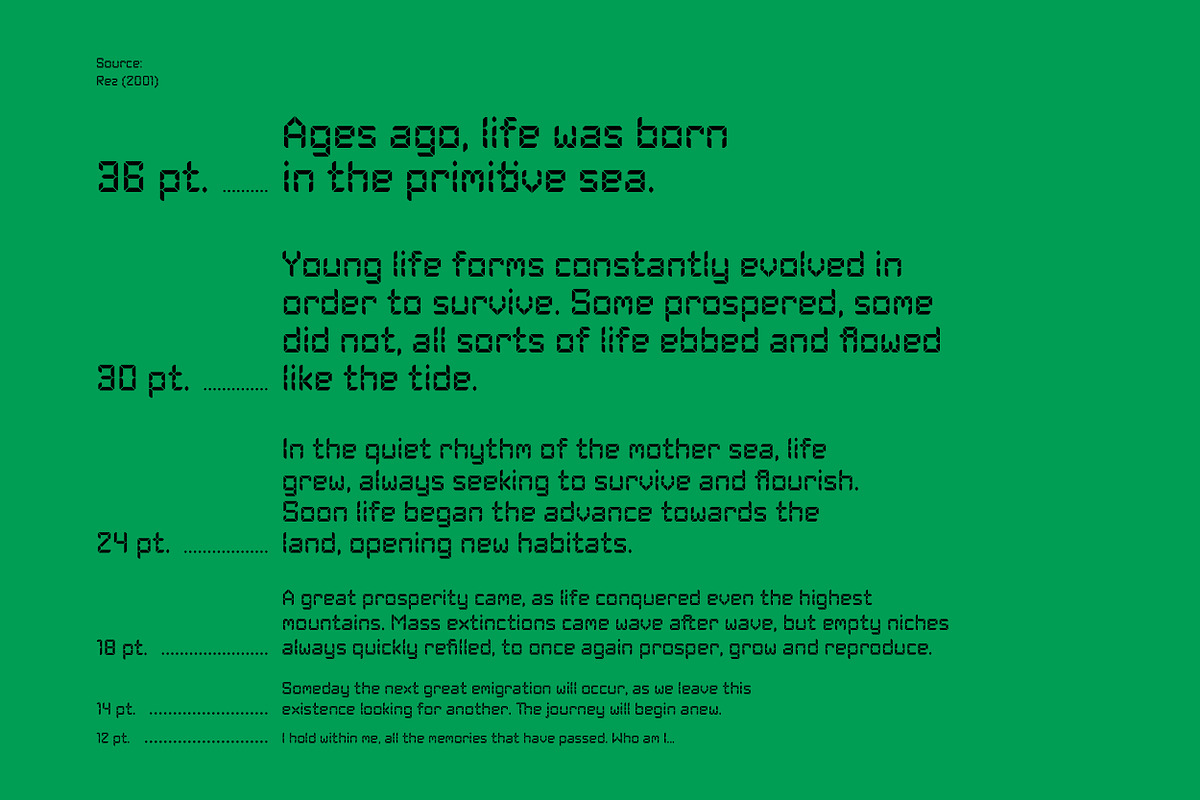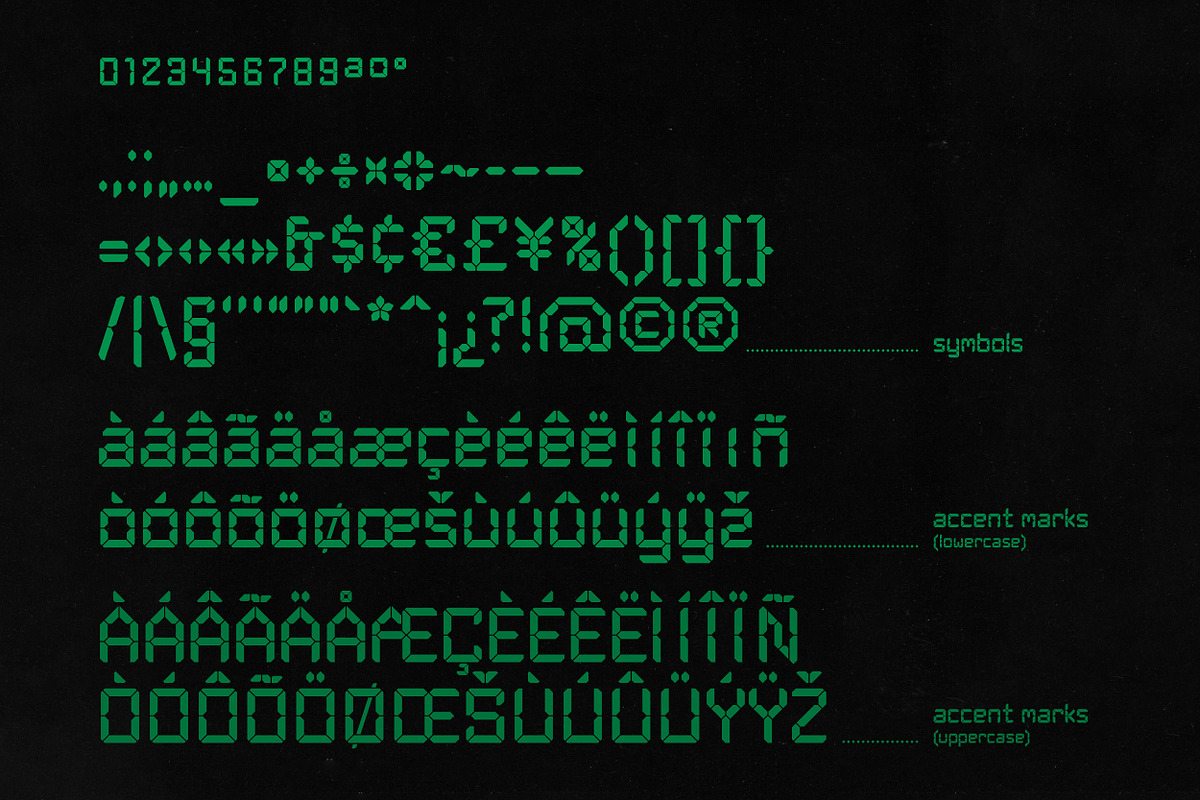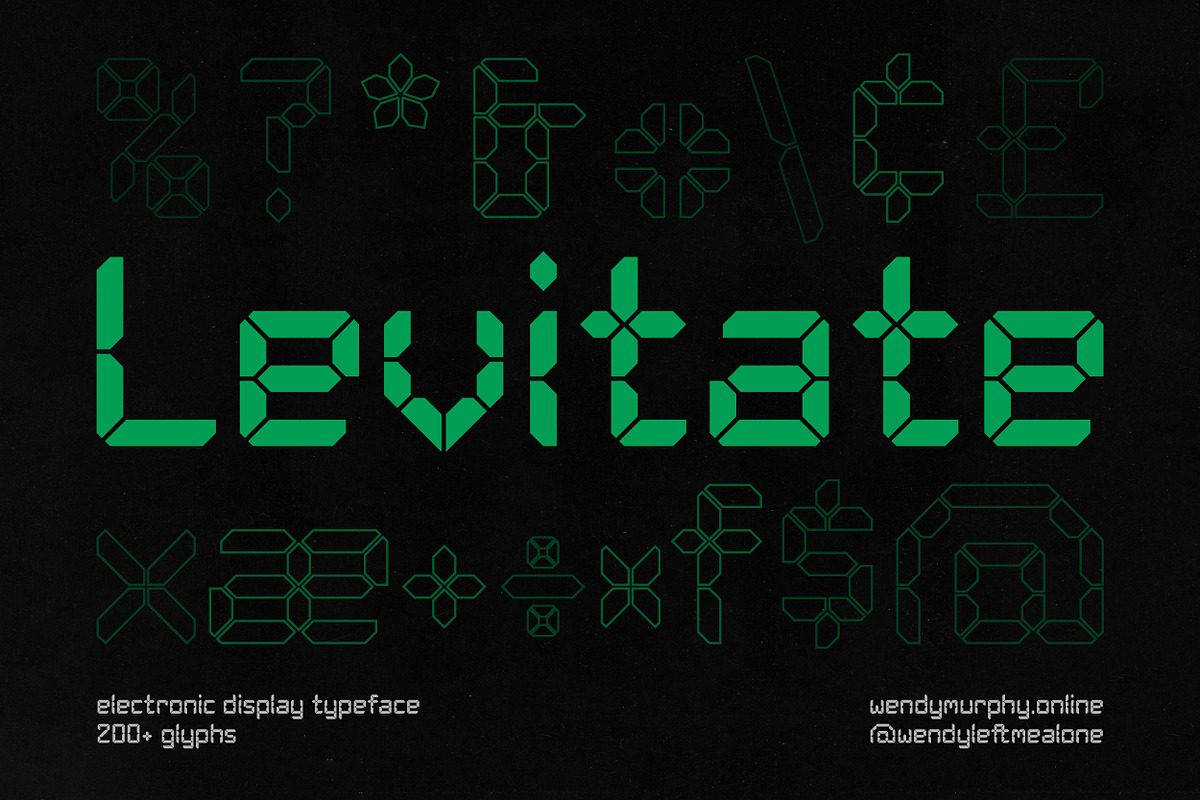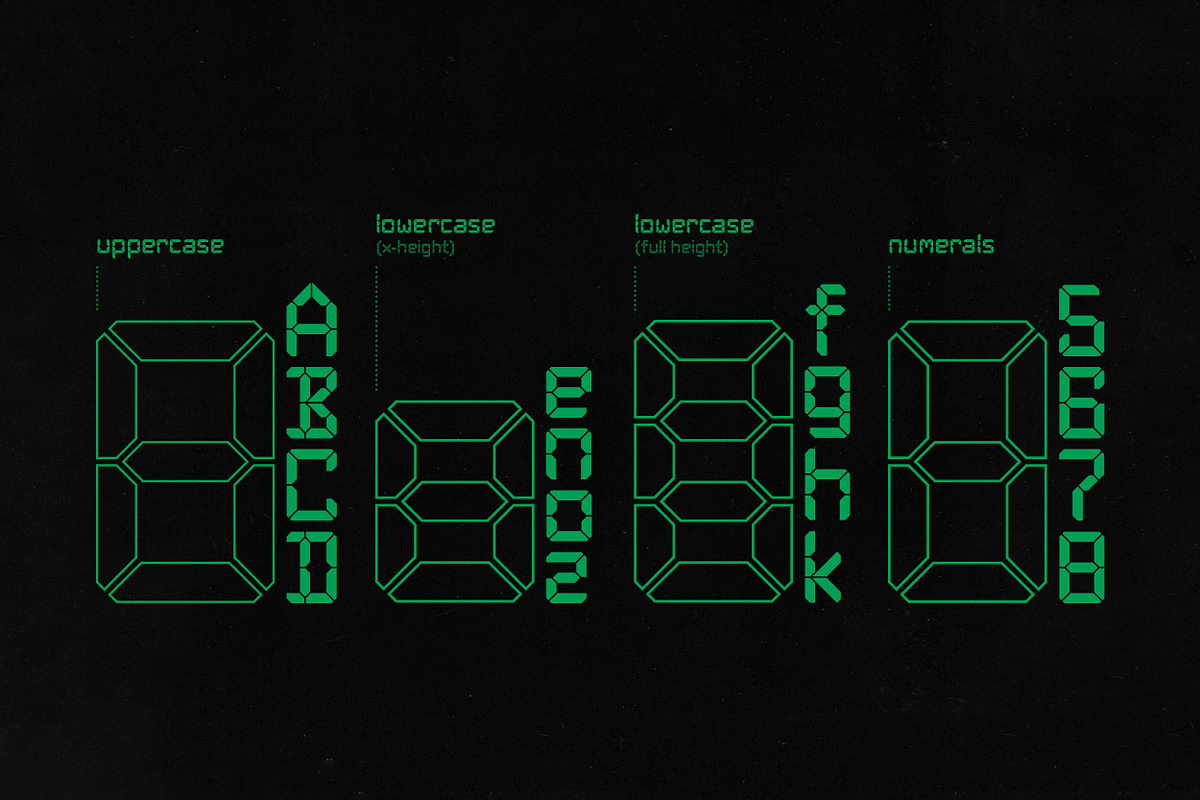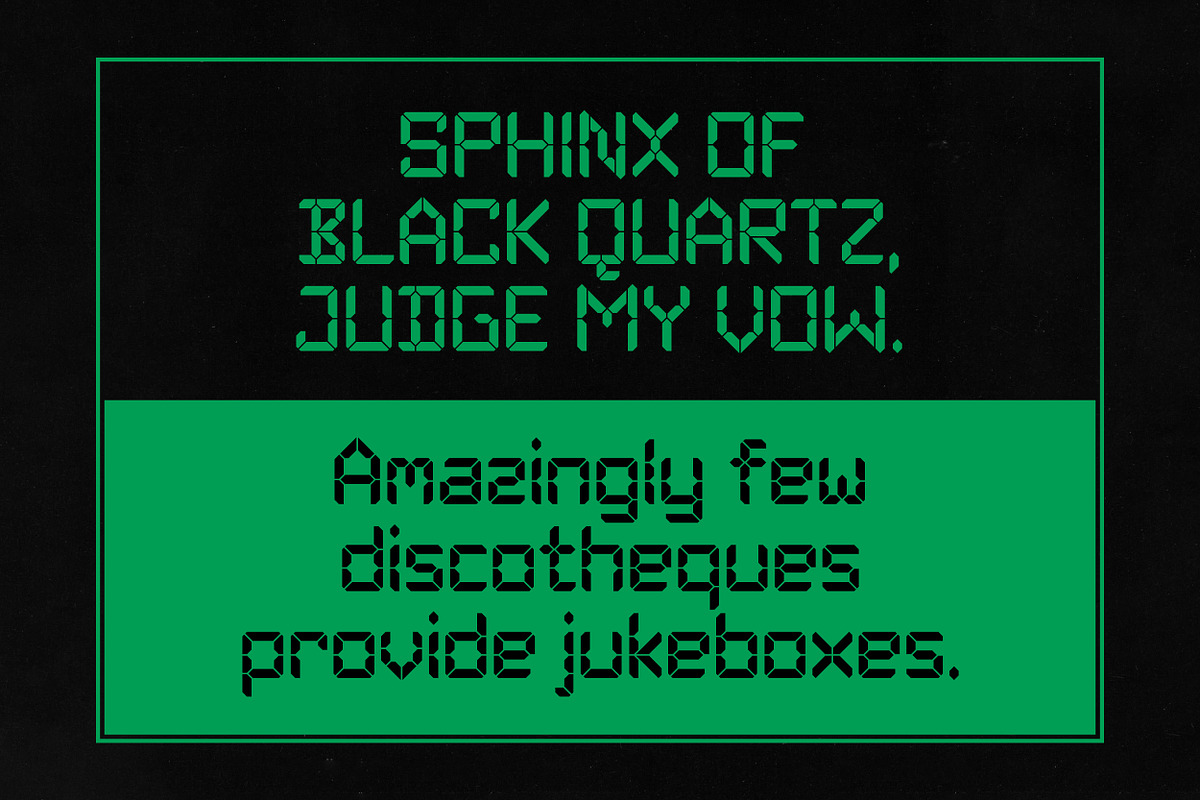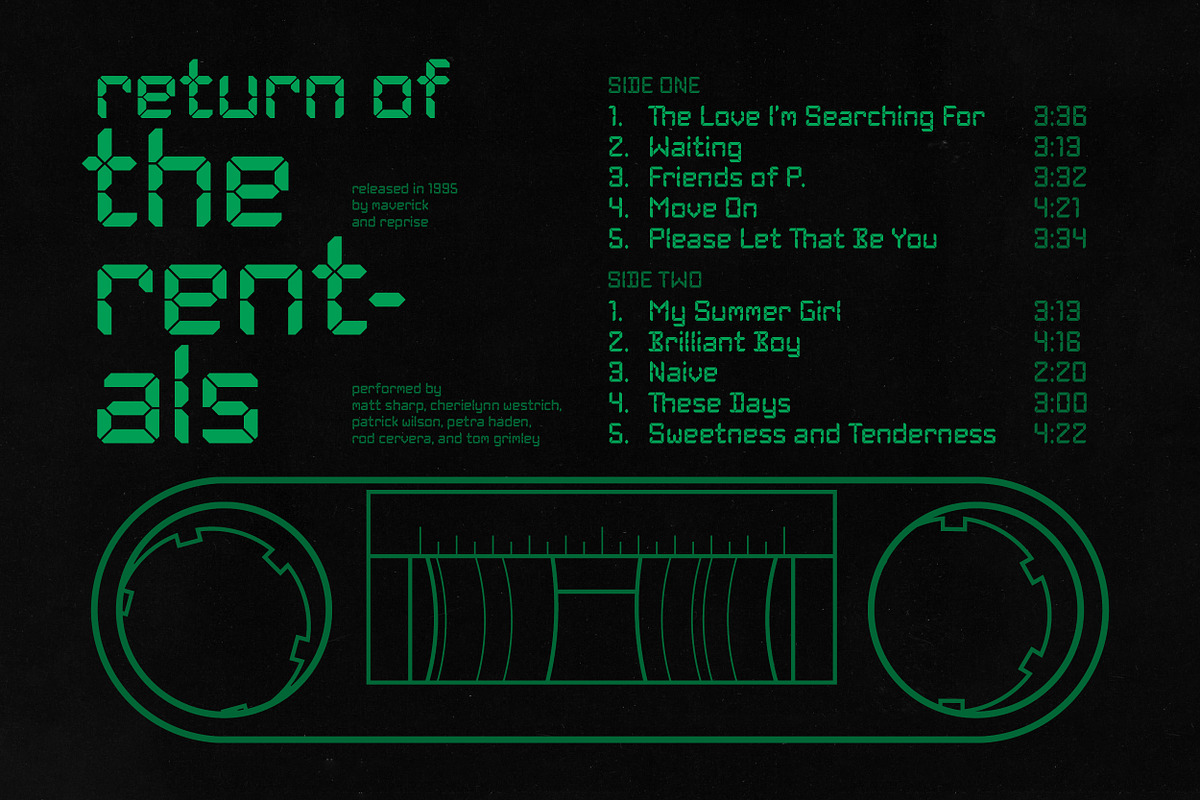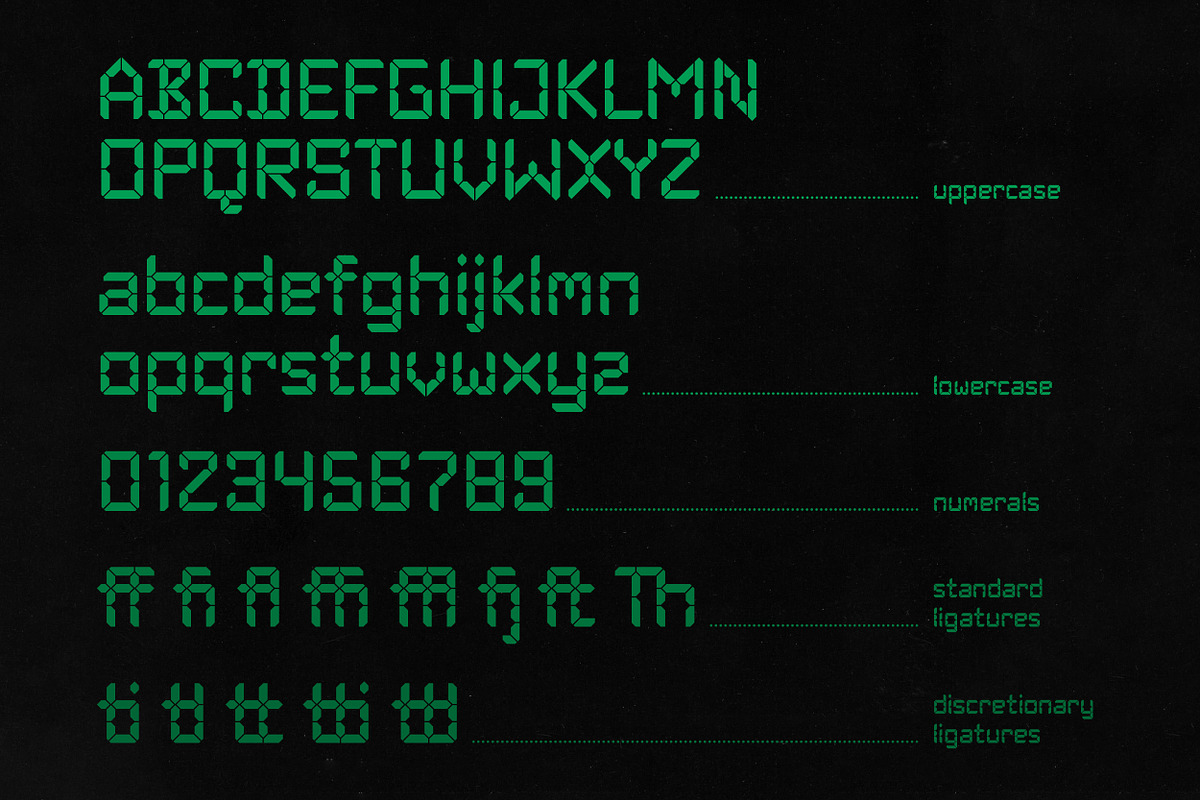
Levitate | Electronic Display Type
Levitate is a segmented display typeface that combines familiarity with curiosity. Taking aesthetic inspiration from electronic displays used in devices such as digital clocks and calculators: Levitate explores ways to embrace just a handful of shapes and 45-degree angles while developing a language that accounts for theoretically any glyph. The result is a typeface that maintains a futuristic yet nostalgic feel in displays, and allows for digestible reading in smaller sizes.
The typeface contains approx. 210 glyphs (as of July 31st, 2024), including:
- Uppercase letters
- Lowercase letters
- Accent Marks (Uppercase and Lowercase)
- Ligatures (Standard and Discretionary)